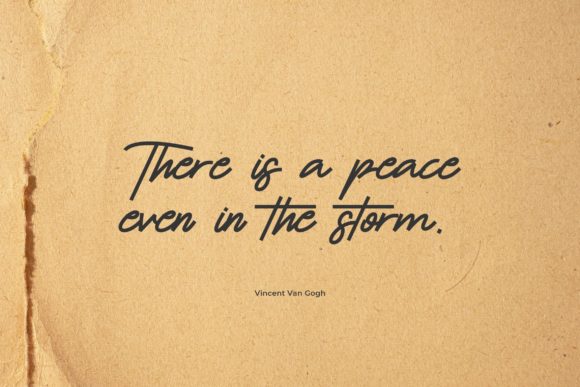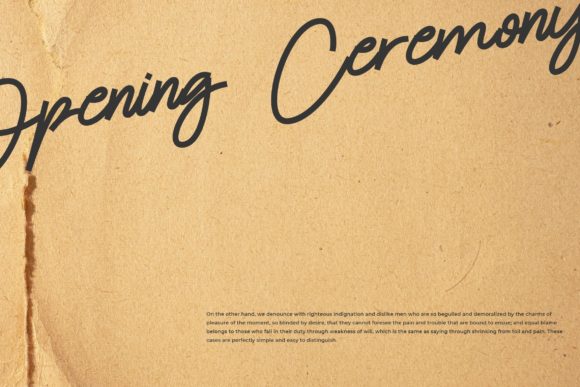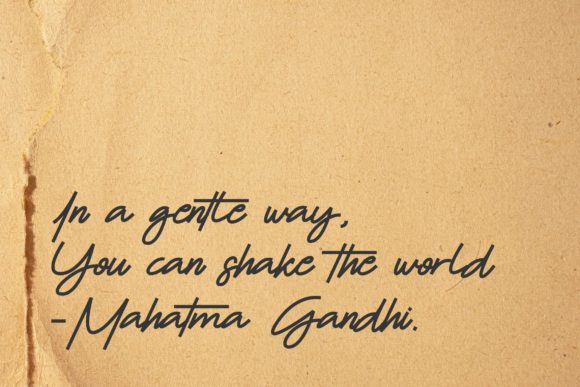
Introduction to Holysta Font
Holysta is a delicate script font with a neat feel.
It can be used for your work, products, events, weddings, commercial products, and others .